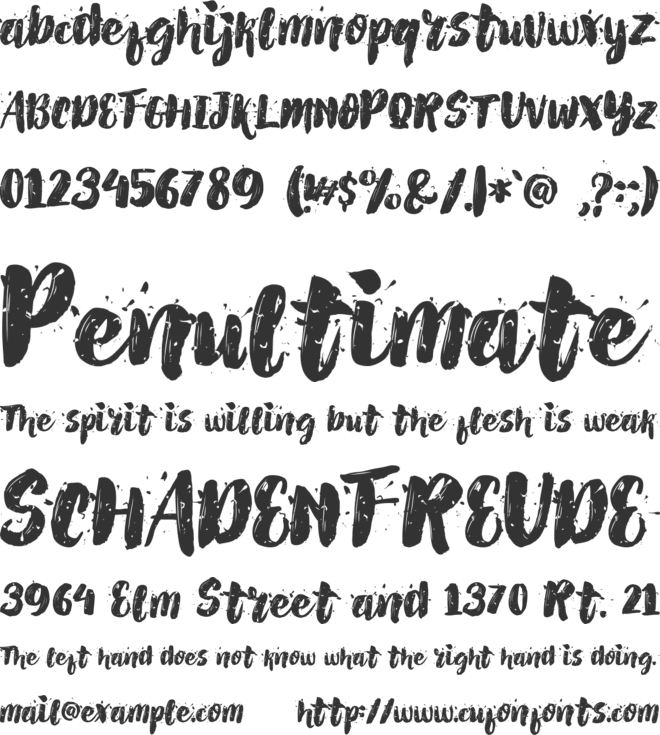
AlexDirte Brush Font
Introducing our latest brush font. this brush font is different from the previous one, alexdirte has a striking dirty texture on each letters. this font looks cool using uppercase and lowercase letters.